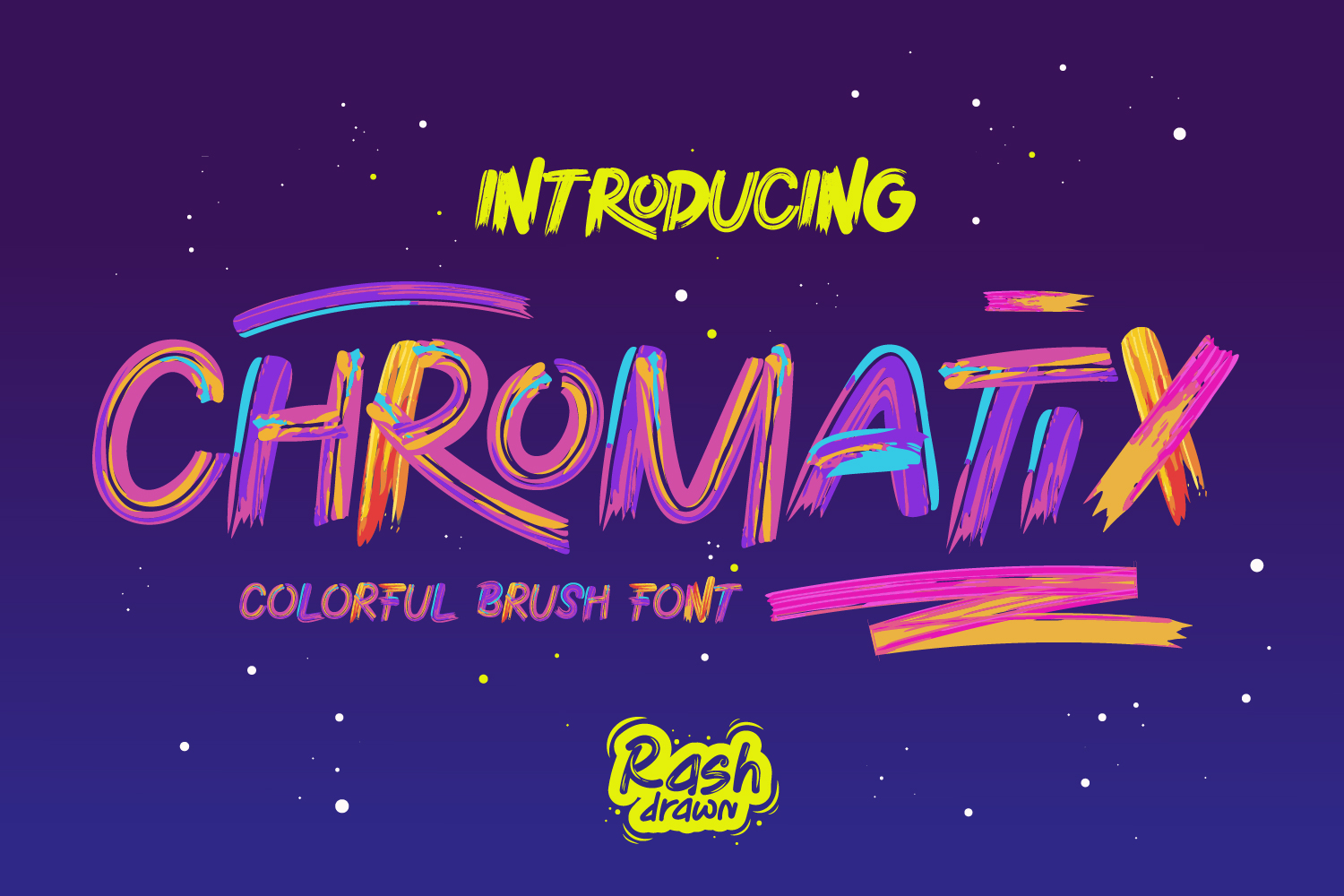
Chromatix
CHROMATIX - Vibrant Colorful Brush Font
Unleash your creativity with Chromatix, a high-energy, hand-drawn color font designed to make a bold statement. Featuring authentic brush stroke textures and a vibrant, multi-color palette, Chromatix captures the raw, spontaneous spirit of street art and contemporary gallery pieces.
This font is perfect for creators who want to skip the tedious coloring process. Just type and watch your designs come to life with instant, professional-grade gradients and textures. It’s the ultimate tool for headlines that need to "pop."
• 2 Dynamic Color Styles: Choose between the full-color vibrant version or the clean, solid style for maximum versatility.
• Bonus Ornaments: Includes hand-drawn swashes and decorative marks to add that extra "splash" to your layouts.
• Apparel Design: Standout graphics for T-shirts, hoodies, and streetwear.
• Branding & Logos: Create an instant, edgy identity for cafes, studios, or brands.
• Event Promotion: Eye-catching posters for music festivals, art workshops, and gallery openings.
• Digital Content: High-impact thumbnails for social media headers.
Bring a touch of artistic "chaos" to your next project with Chromatix. It’s not just a font; it’s a vibe.